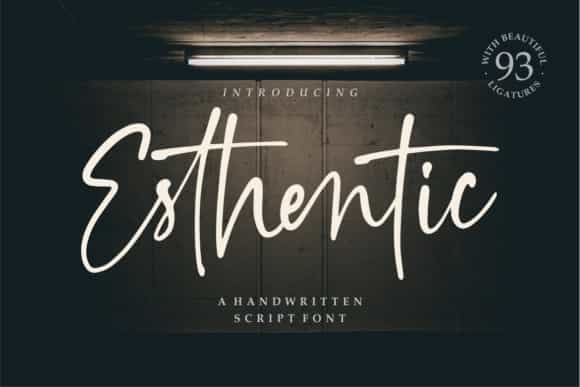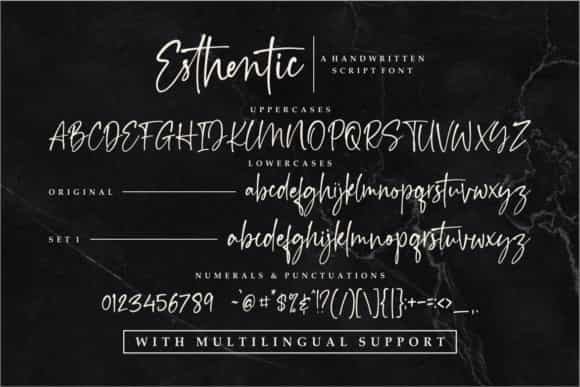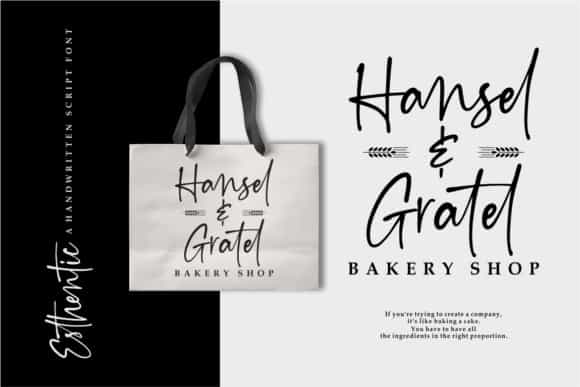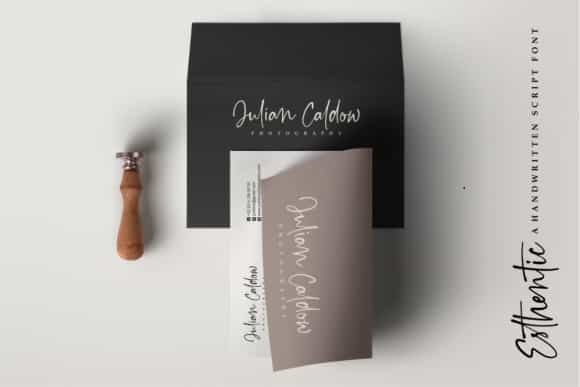
Esthentic is a beautiful and flowing written typeface. You will fall in admiration for it’s incredible versatility style and apply it to design stunning wedding invitations, gorgeous stationary, or catchy post on social networks.